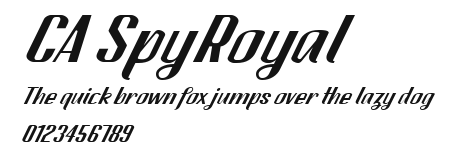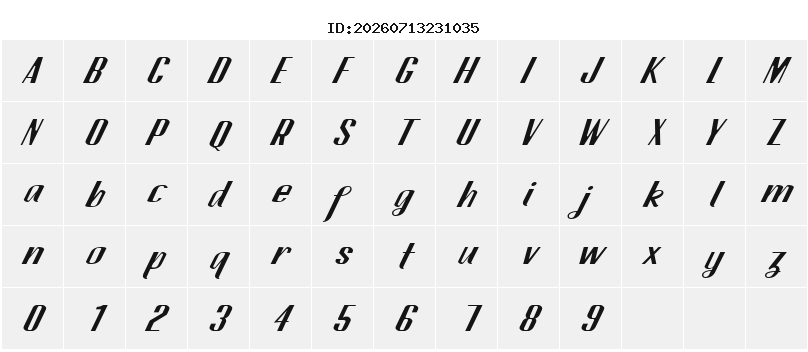
• Font Name: CA SpyRoyal
• Designer: Thomas Schostok
• Manufacturer: Thomas Schostok {ths.nu} for Cape-Arcona.com
About CA SpyRoyal.ttf
CA SpyRoyal.ttf is a modern, elegant sans-serif font designed for ultimate readability and visual harmony. Perfect for branding, headlines, web design, and print materials.